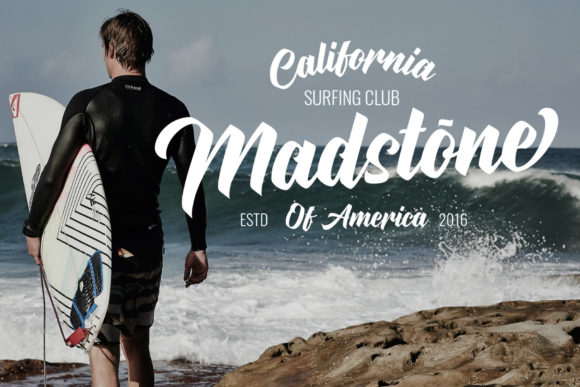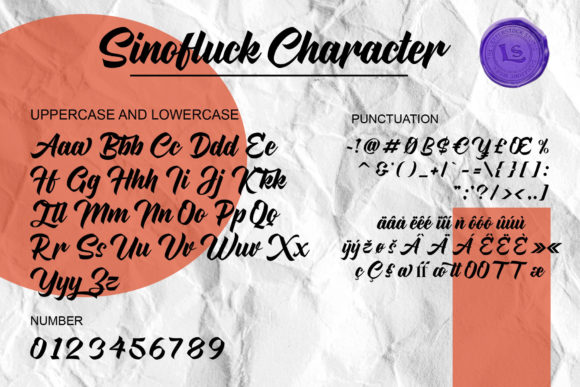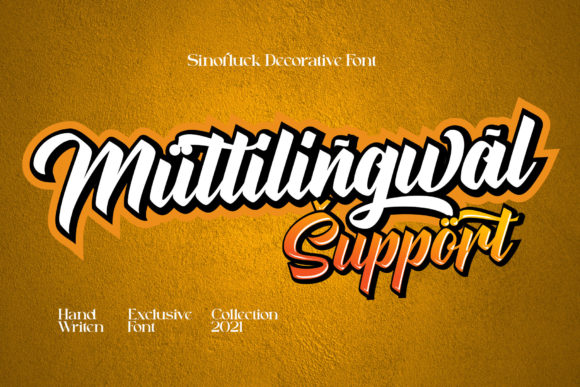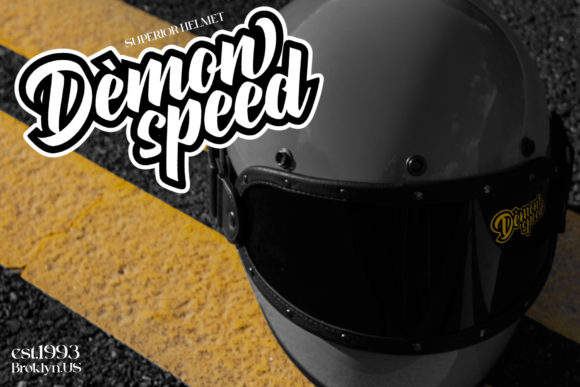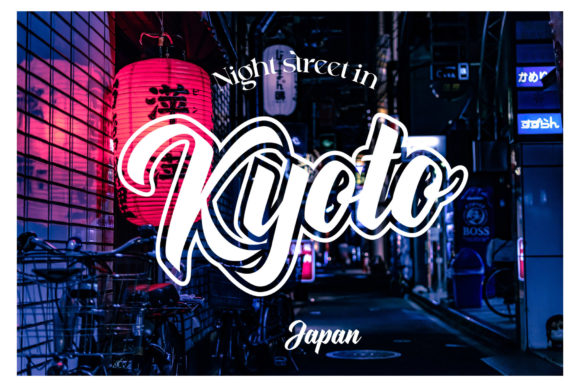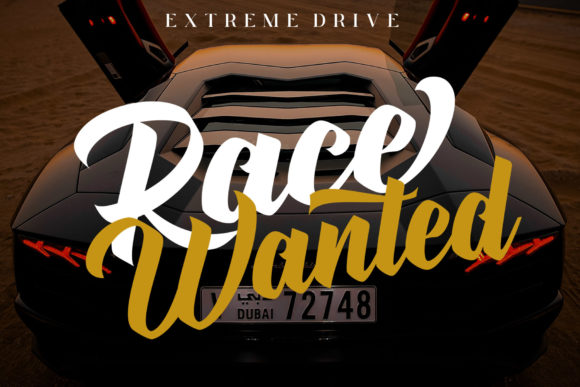
Sinofluck Font
About Sinofluck Font
Sinofluck is a gorgeous and retro styled handwritten font, crafted to give your headlines and logotype projects a stylish touch. This font reads as strong, confident, and dynamic and can add tons of nostalgic character to your designs.